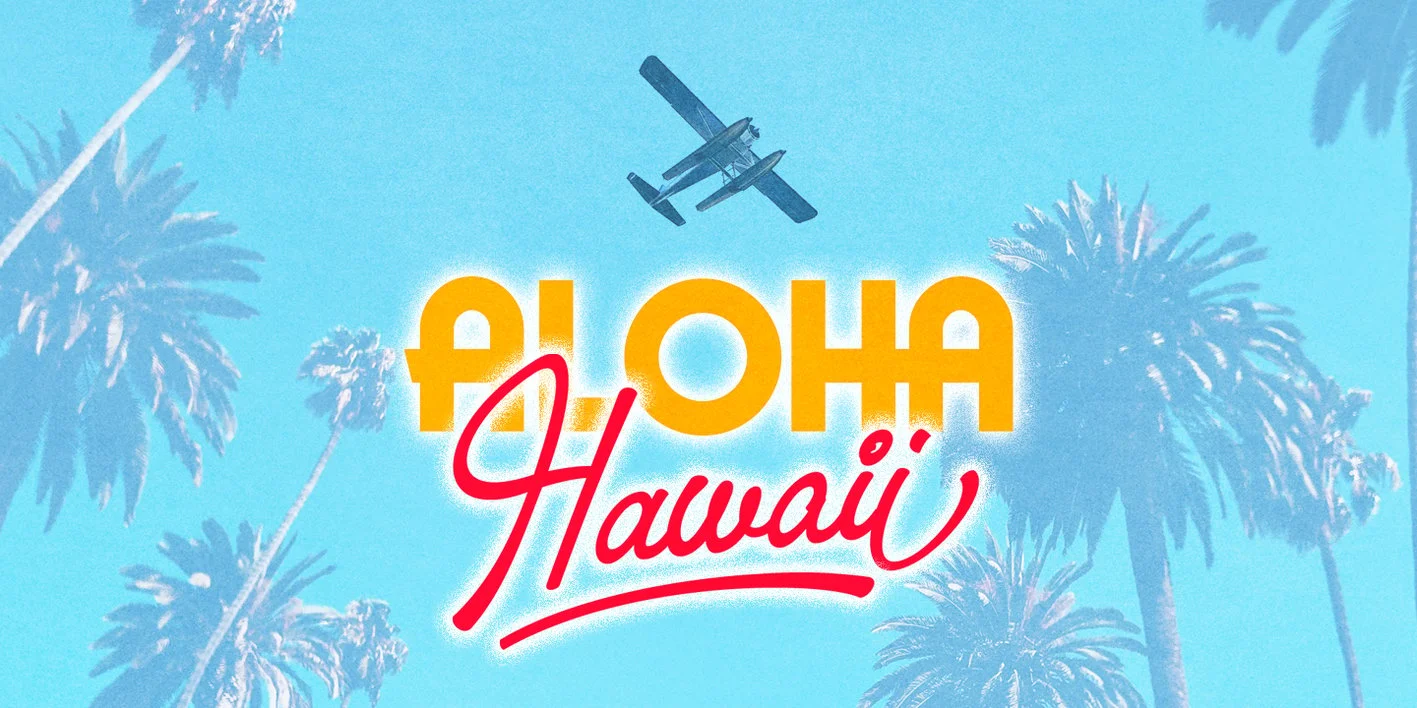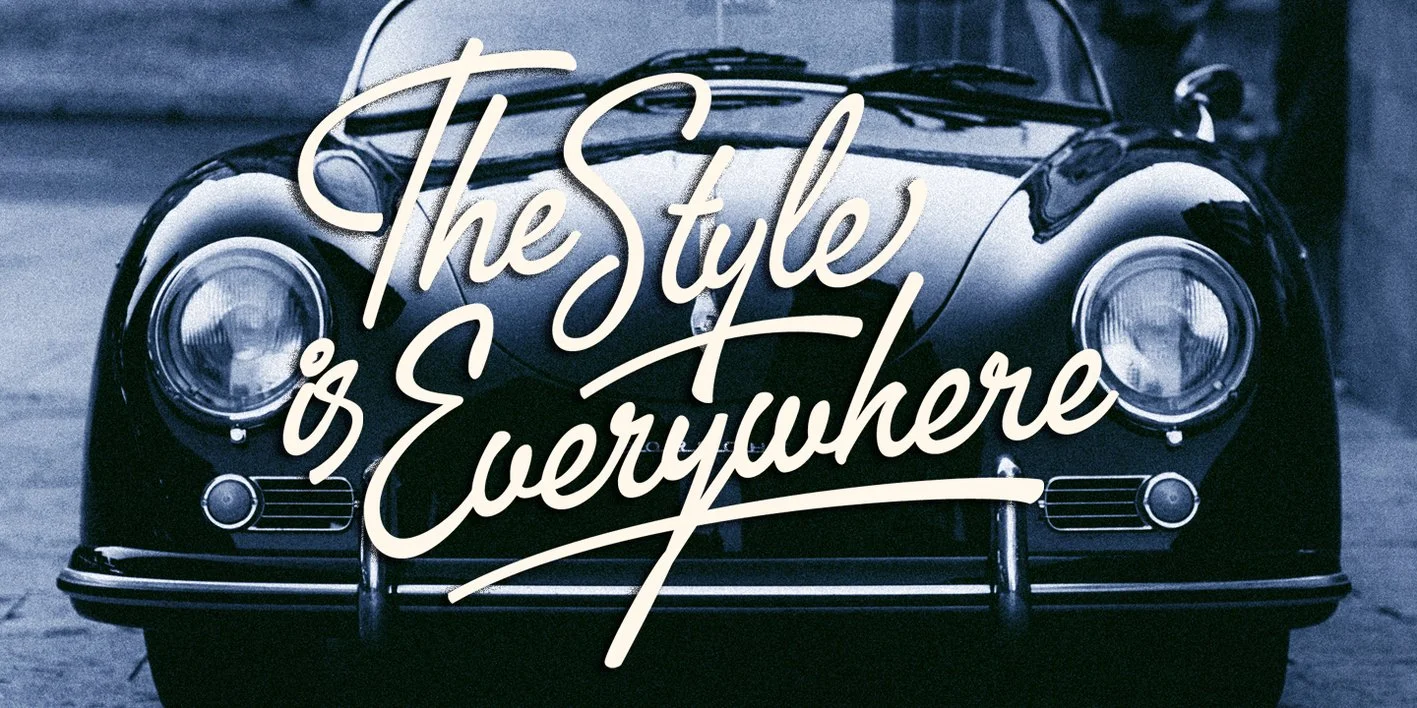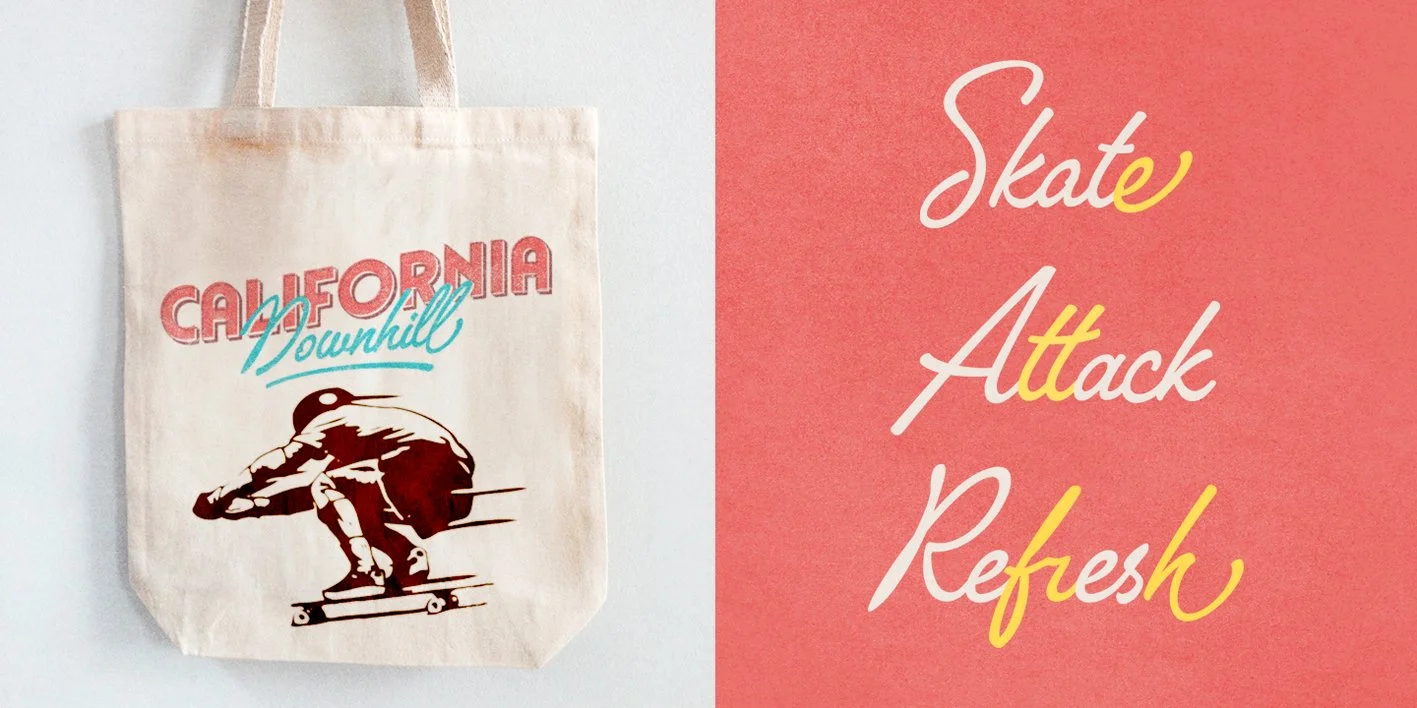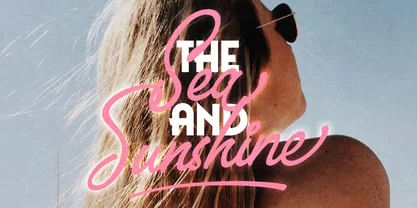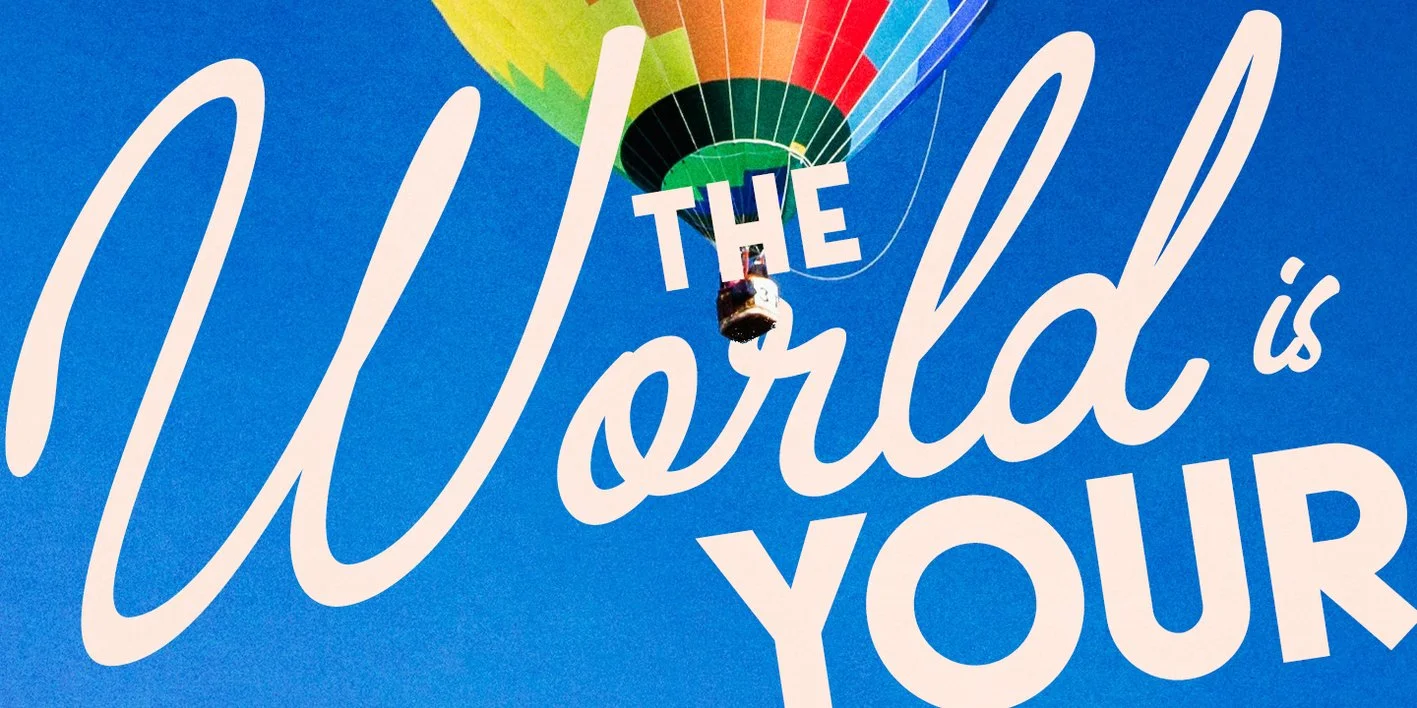
The Voyage Culture Font
There is a particular satisfaction in finding a typeface that delivers controlled contrast that rewards close inspection without compromise. The Voyage Culture consistently provides it. The typeface brings a versatile sensibility to a broad range of creative disciplines, with distinctive character without sacrificing readability that holds up whether the work is print-first or screen-first.
In practice, The Voyage Culture proves particularly effective for logo design, brand identity systems, signage systems, editorial layouts, environmental graphics. Designers reaching for it find that the type decisions feel resolved rather than laboured — a useful quality when client timelines are tight.
The range of applications extends to social media graphics, advertising campaigns, poster creation, packaging design. That breadth is deliberate: the proportions and spacing were stress-tested across a wide range of mock briefs before the typeface was finalised.
Freelance designers across print and digital disciplines find The Voyage Culture a reliable choice for projects that demand both personality and restraint. The design avoids the self-conscious quirkiness that dates quickly, settling instead for considered distinctiveness that holds up over time.